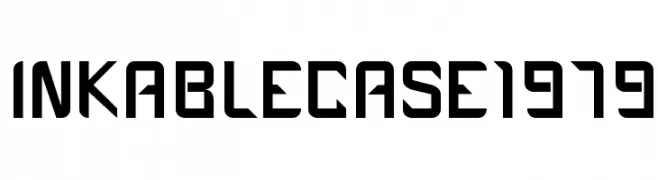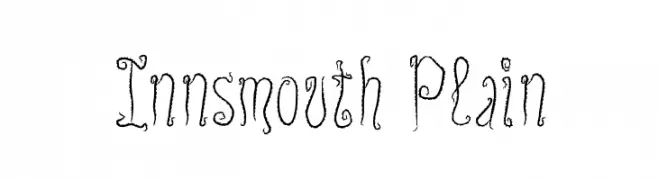
A whimsical and artistic font with swirling, elongated strokes and decorative curls.
A whimsical, decorative font with swirling embellishments and a hand-drawn feel.
A geometric, futuristic font with angular, interconnected letterforms.
A bold, futuristic font with geometric and symmetrical design elements.
A bold, futuristic font with geometric shapes and high contrast.
A modern, geometric font with rounded edges and a clean, uniform appearance.
A modern, rounded font with a geometric and uniform design.